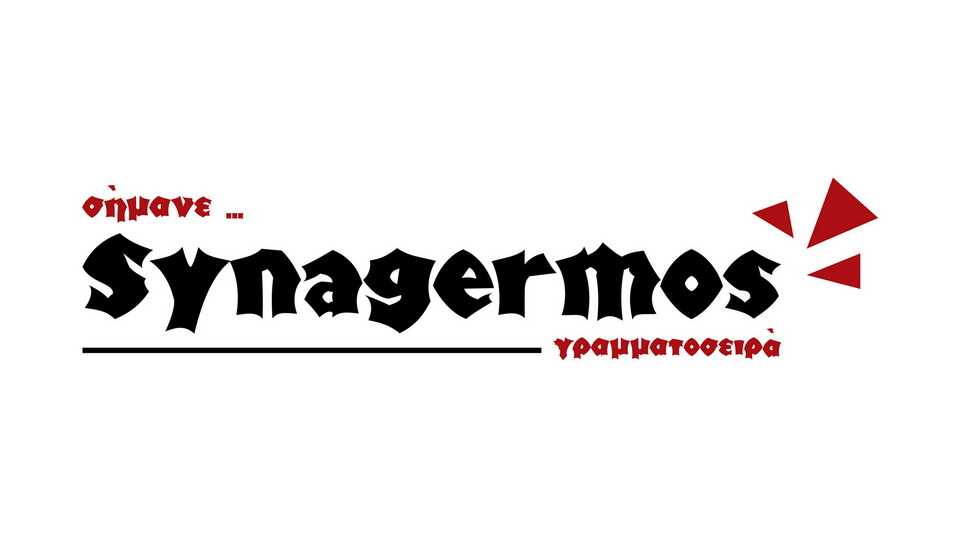
Download Synagermos font, a decorative display typeface with a strong and unique personality. Synagermos is ideal for large headlines, posters and impressionable typography.